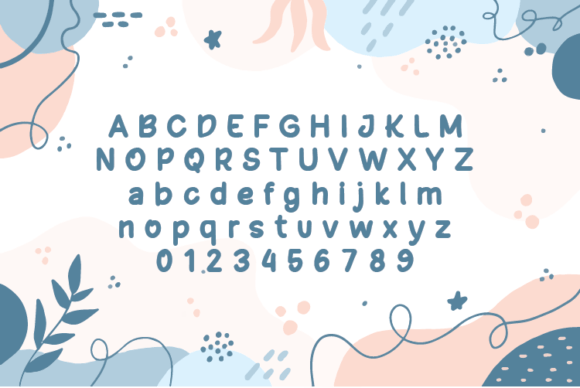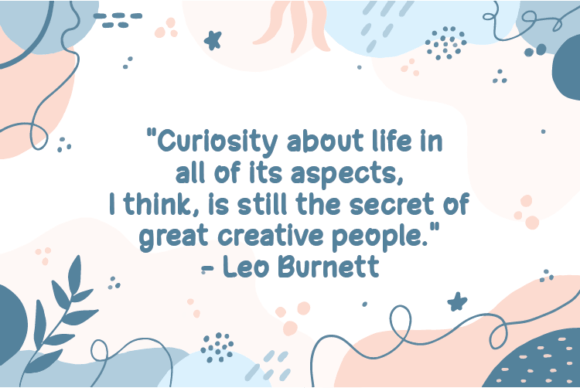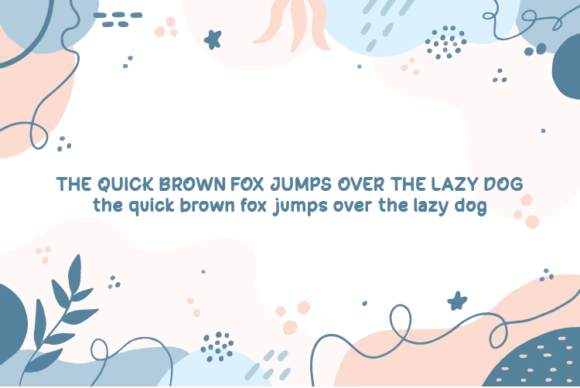
Pearch Juices Font
Pearch Juices is a natural handwritten font without changing a single node in each character’s indentation, this makes this font very interesting and unique. Perfect for quotes, notes, tees, and any product design.